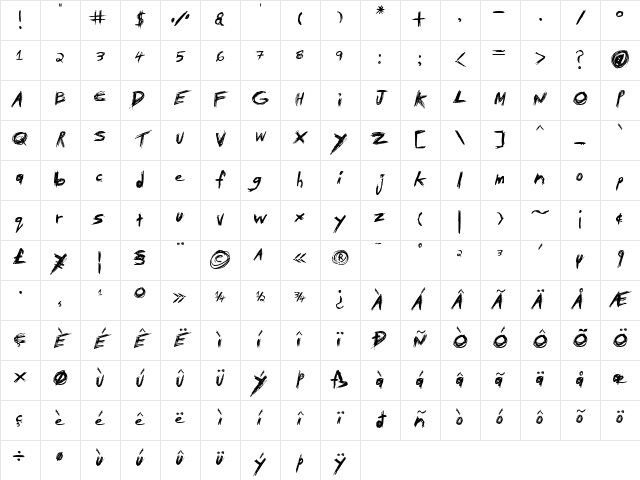
TibetanBeefgarden AOE Regular
Foundry: Astigmatic (AOETI)
Designer: Brian J. Bonislawsky, Astigmatic
Design Context for TibetanBeefgarden AOE
TibetanBeefgarden AOE is a composed and adaptable typeface that performs quietly and consistently across a wide range of design contexts.